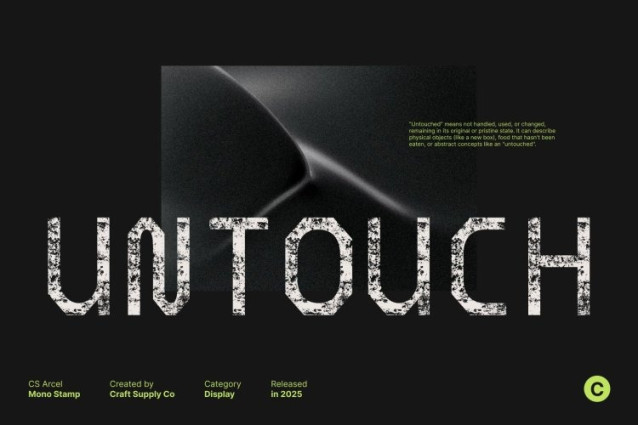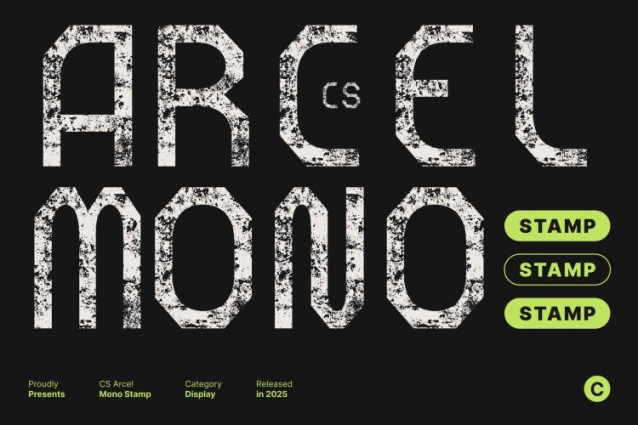
CS Arcel Mono Stamp Font
CS Arcel Mono Stamp Font This is a monospaced serif font designed with absolute clarity and structure. Each character shares consistent spacing, creating a balanced rhythm that enhances readability while giving your layouts a clean, organized, and modern presence. Its precise construction makes it ideal for designers who appreciate order, consistency, and intentional design flow.
Artistic Character with Industrial Futuristic Style
Beyond its structured build, introduces artistic flair through its industrial futuristic aesthetic. Sharp serif details combine with monospaced discipline to create a font that feels technical yet imaginative. This blend gives every composition a forward-thinking look perfect for themes involving technology, innovation, machinery, or creative experimentation.
Vintage Stamp Texture for a Distinctive Handmade Feel
Adding personality to its futuristic tone, the expressive stamp texture gives the font a subtle vintage charm. Each letter carries a slightly worn, tactile quality that softens its mechanical structure and brings it to life. This handcrafted effect makes the font feel more authentic, artistic, and visually engaging ideal for designs that balance old-world texture with modern typography.
Versatile for Branding, Posters, Editorials, and Print Layouts
This font adapts seamlessly across a wide range of creative applications. Its clear spacing, industrial style, and textured details make it a strong choice for branding, posters, packaging, tech visuals, and expressive editorial layouts.